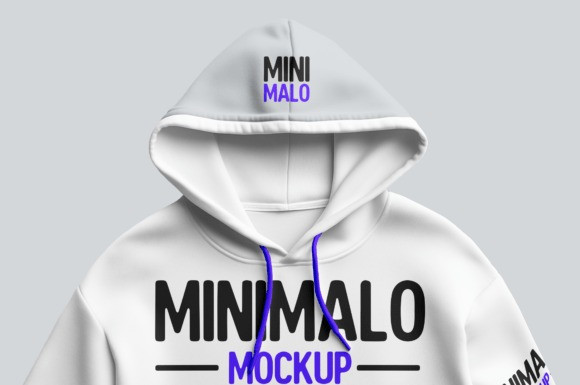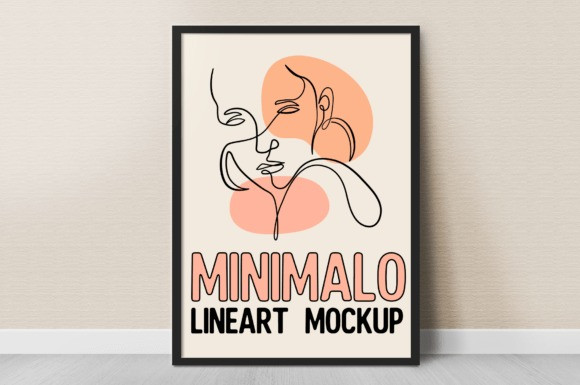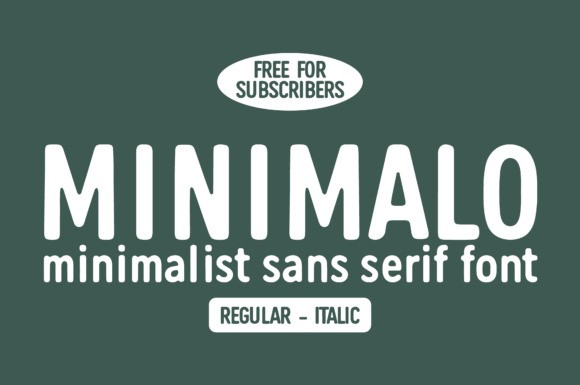
Minimalo Font
Minimalo Font — a minimalist rounded condensed sans serif font engineered for modern branding and seamless readability. Featuring softly rounded terminals and narrow, space-saving letterforms, Minimalo brings both warmth and efficiency to your typography. Whether you’re crafting bold headlines, sleek logos, marketing collateral or user‑interface elements, its versatile Regular and matching Italic styles ensure your message shines with clarity and style.
Built for digital and print excellence, Minimalo’s condensed proportions maximize impact in tight layouts—perfect for web pages, mobile apps, packaging, editorial spreads and social‑media graphics. Its clean, contemporary aesthetic resonates across industries, from tech startups and agencies to lifestyle brands and corporate identities. Easy to pair with complementary typefaces, Minimalo streamlines your design workflow while elevating your projects with a professional, on‑trend look.